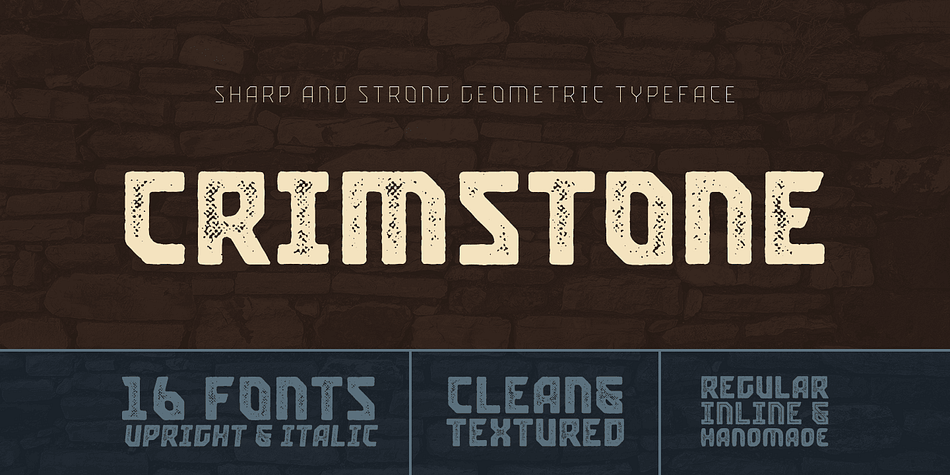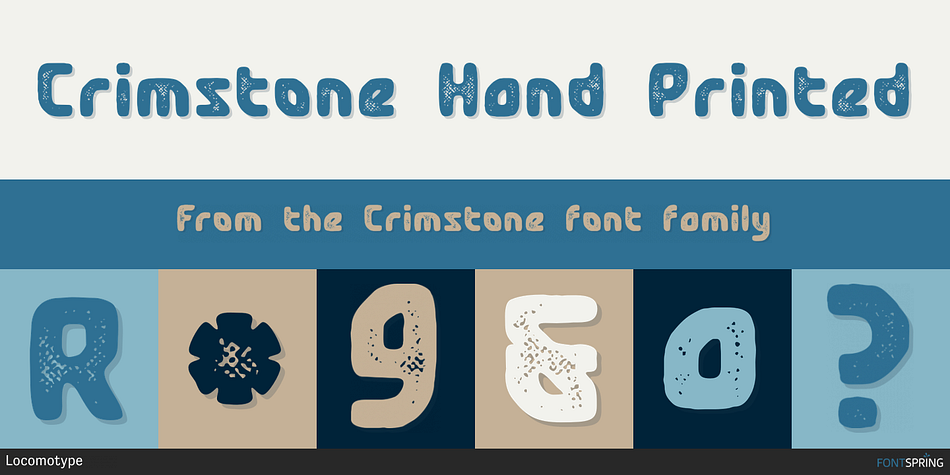
Crimstone Hand Printed
Crimstone is a display sans font family. This typeface has sixteen styles and was published by Locomotype.
Crimstone is a bold and strong geometric typeface. Rectangular shape with rigid and sharp edges is the first impression that makes this font look powerful and hit. Its continued development created other variations including rounded styles, inline and handmade styles.
Not only the clean version, Crimstone is also available in a printed version with a rough and textured appearance. Each has an upright and slanted version.
Available in 16 fonts, the Crimstone family is perfect for poster designs, movie titles, logotypes, packaging etc.